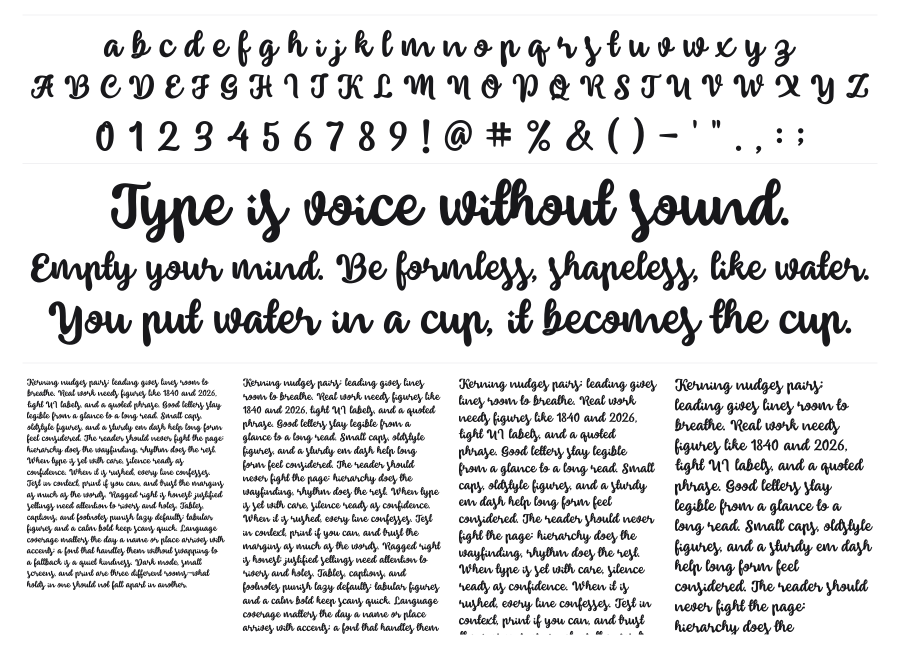
Insting
by Zulfikar Ali · Website
Insting is a bold connected casual script with smooth flowing strokes and a cheerful, bouncy rhythm. The generous x-height and rounded construction give it an approachable warmth, while small decorative diamond details add a handcrafted touch. It reads well at large sizes for logos, packaging, and lifestyle branding.